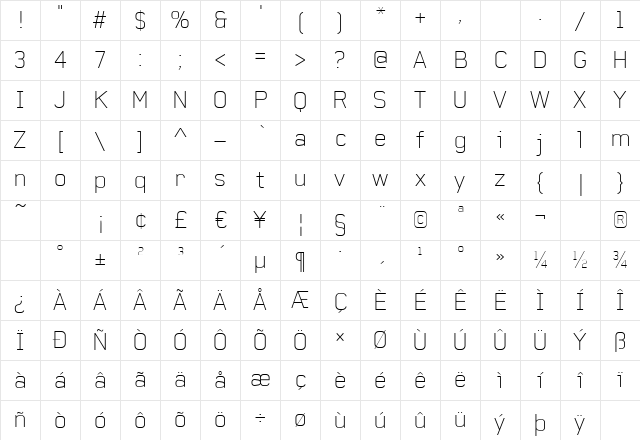
Baksheesh Thin Free Font
Baksheesh Thin
Style: Thin
Baksheesh Family
Baksheesh Thin
Complete Baksheesh Thin glyph index. Displaying only characters natively supported by Baksheesh Thin font.
Design Context for Baksheesh
Baksheesh is a composed and adaptable typeface that performs quietly and consistently across a wide range of design contexts. Its slender proportions lend an understated elegance to any composition.